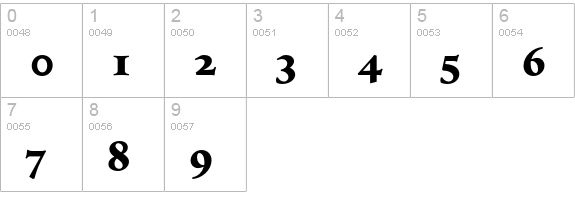
Elmhurst-Black Font Details
Elmhurst-Black is a maximum-weight, dramatic variant in the Elmhurst typeface family \xE2\x80\x94 well suited to maximum-impact headlines, posters, and packaging.
Elmhurst-Black is a bold and sophisticated font that exudes a sense of modern elegance and timeless style. With its clean lines and sharp edges, this typeface is perfect for creating eye-catching titles and headlines that demand attention. The thick strokes and wide letter spacing give Elmhurst-Black a strong presence on any design project, making it ideal for posters, logos, and branding materials. What sets Elmhurst-Black apart is not only its striking appearance but also its versatility. Whether you're working on a sleek corporate brochure or a trendy fashion magazine layout, this font will elevate your design to a whole new level. Its balanced proportions and distinct character shapes make it a standout choice for any creative endeavor. Best of all, Elmhurst-Black is available for free download at FontsMarket.com. This means you can easily access this premium font without breaking the bank, making it a valuable addition to your typography collection. So why wait? Enhance your projects with the bold and impactful Elmhurst-Black font today!